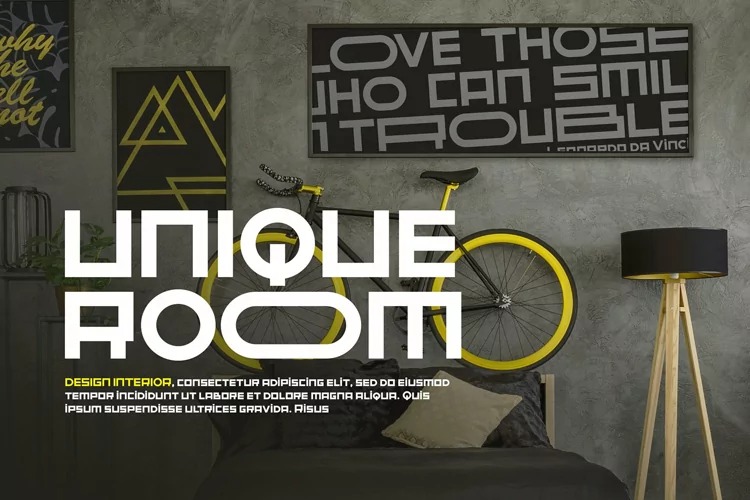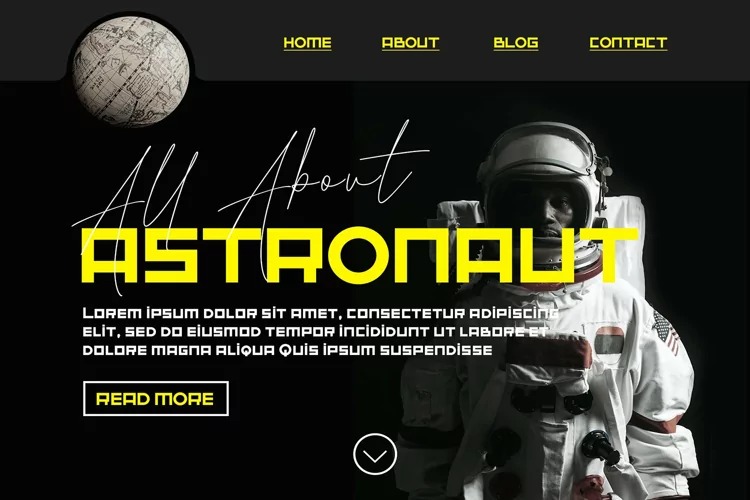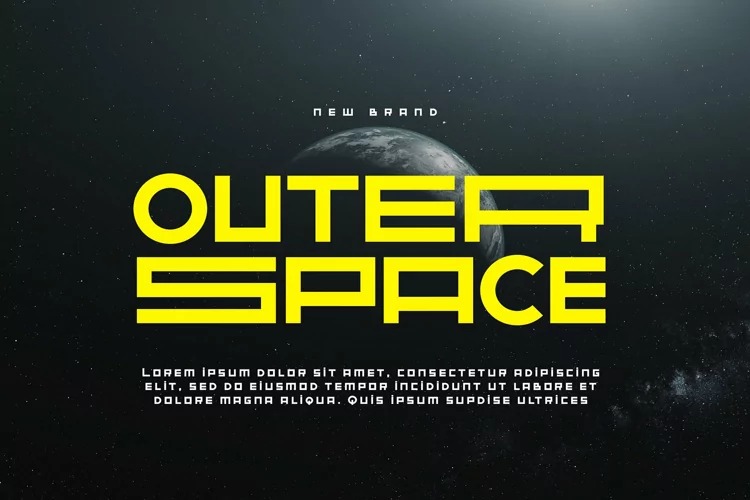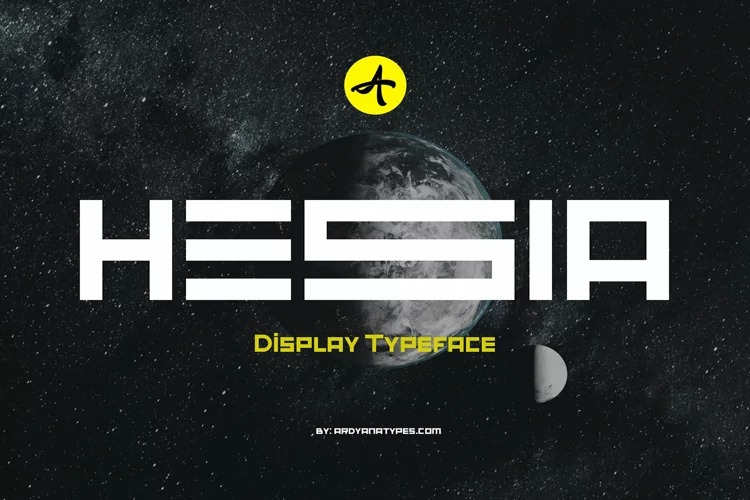
Hesia Font
Hesia Display Font is a futuristic typeface, a font inspired by the visual of technology that can apply to logo, sci-fi movies and the present gadgets. Hesia has its own charm, so it will be very suitable to be combined with any style. Has Lots of Alternatives and ligatures to add a great interactive feel to every design. Hesia also comes with multilingual support and is very easy to use. Hesia is interesting to use in designs such as books, movie posters, logos, branding, business cards, and more that can be combined with Hesia Typeface.